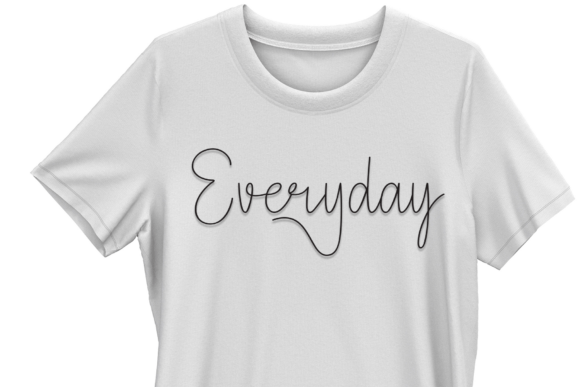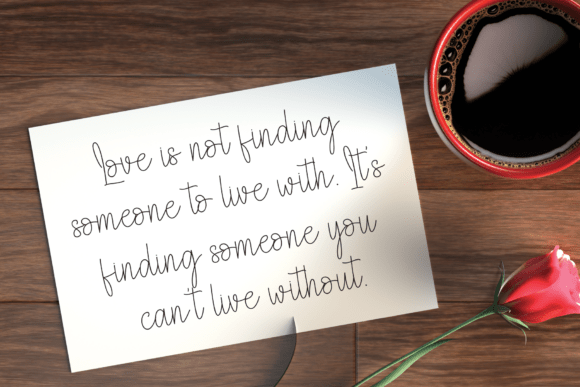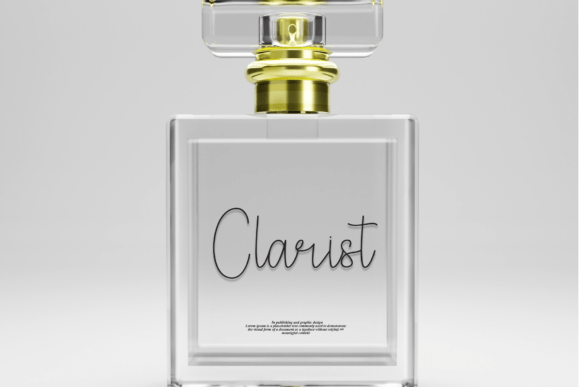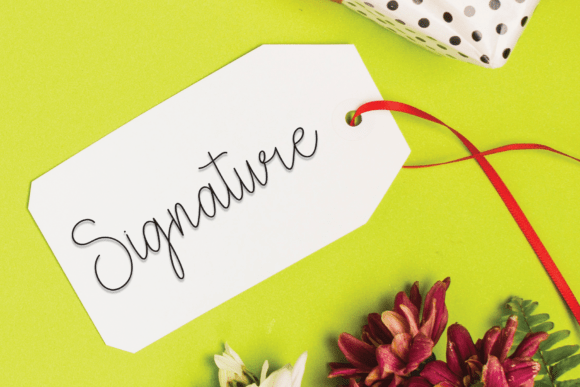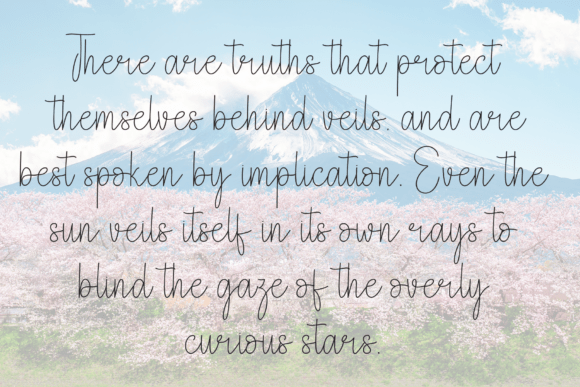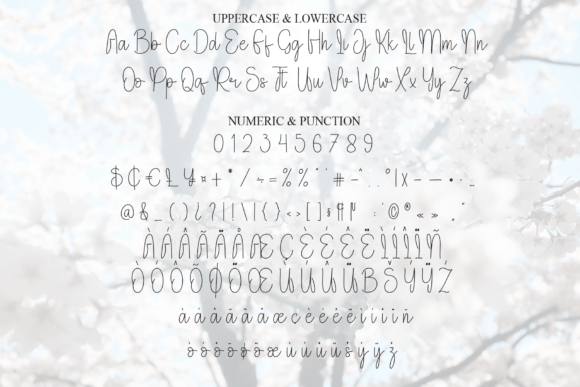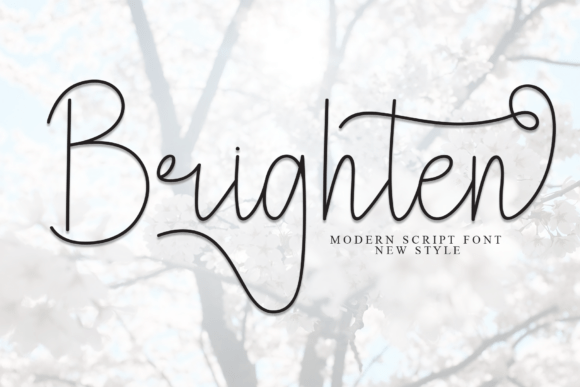
Introducing Brighten Font: Elevate Your Designs with Elegance and Playfulness
In the world of typography, fonts play a crucial role in conveying the tone and personality of a design. For designers and crafters looking to add a touch of modern elegance and playfulness to their projects, Brighten Font is an excellent choice. This stylish handwritten script font is designed to blend sophistication with a charming, personal feel, making it perfect for a variety of applications.
The Unique Charm of Brighten Font
Brighten Font stands out with its fluid strokes and charming curves, which bring a sense of warmth and creativity to any design. Its handwritten nature gives it a personal and approachable feel, making it ideal for designs that require a touch of elegance and sophistication. Whether you’re working on a logo, packaging, invitation, or any other project, Brighten Font is sure to make it shine.
Key Features of Brighten Font
- Modern Elegance: Brighten Font boasts a modern and stylish look that is perfect for designs that require a touch of sophistication.
- Playful Touch: Its playful and charming curves add a fun and creative element to any design.
- Fluid Strokes: The font’s fluid strokes give it a smooth and elegant appearance.
- Versatile: Brighten Font is suitable for a wide range of applications, including logos, packaging, invitations, and more.
Brighten Font is an excellent choice for designers and crafters who want to add a personal touch to their projects. Its unique blend of modern elegance and playfulness makes it perfect for:
- Logos: Create a memorable and stylish logo that reflects your brand’s personality.
- Packaging: Add a touch of elegance and sophistication to your product packaging.
- Invitations: Make your invitations stand out with a beautiful and stylish font.
- Digital and Print Designs: Use Brighten Font in a variety of digital and print designs, including brochures, flyers, and more.
Why Choose Brighten Font?
With so many fonts available, why choose Brighten Font? Here are a few reasons:
- Unique Style: Brighten Font offers a unique and stylish look that will make your designs stand out.
- Ease of Use: The font is easy to use and works well in a variety of design applications.
- High-Quality: Brighten Font is a high-quality font that is designed to deliver excellent results.
Brighten Font is an excellent choice for designers and crafters looking to add a touch of modern elegance and playfulness to their projects. Its unique blend of fluid strokes and charming curves makes it perfect for a variety of applications, including logos, packaging, invitations, and more. With its ease of use, high-quality design, and unique style, Brighten Font is sure to become a favorite in your design toolkit.